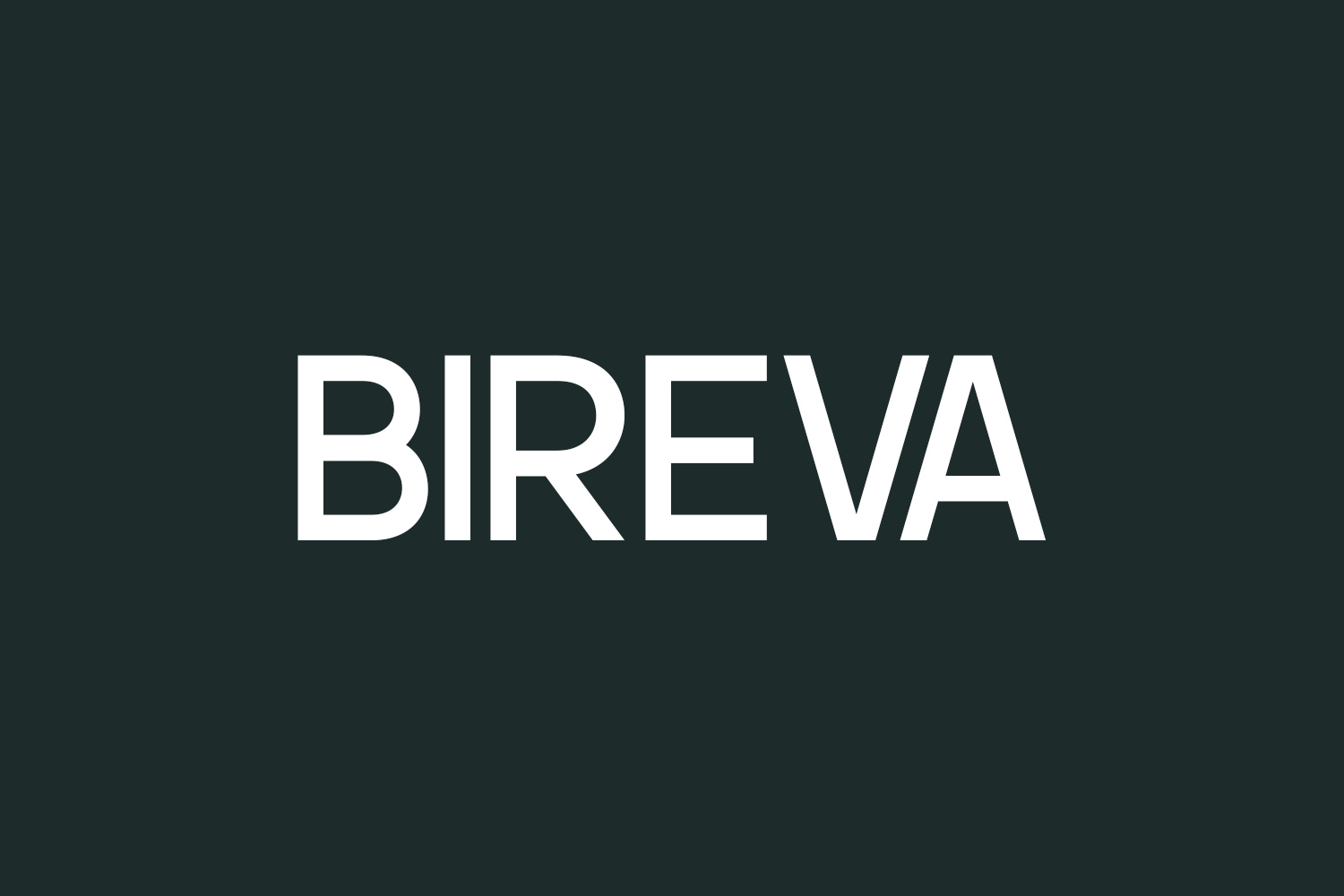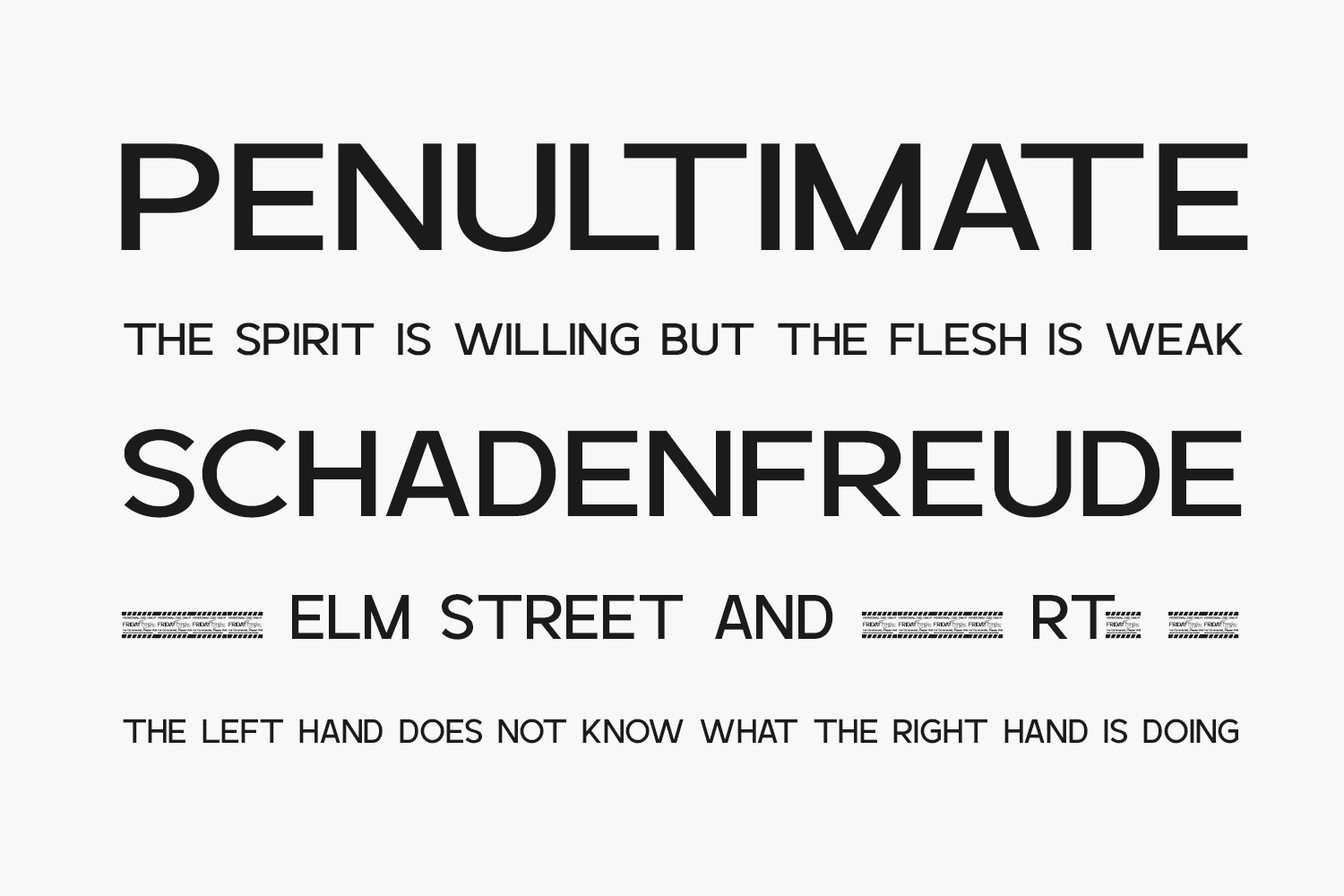
Bireva Free Font is an organic and unique sans serif font. It can easily be matched to an incredibly large set of projects, so add it to your creative ideas and notice how it makes them stand out. Bireva Free Font was designed by Fridaytype is a demo and free for personal use only. Please purchase the full version for commercial use.